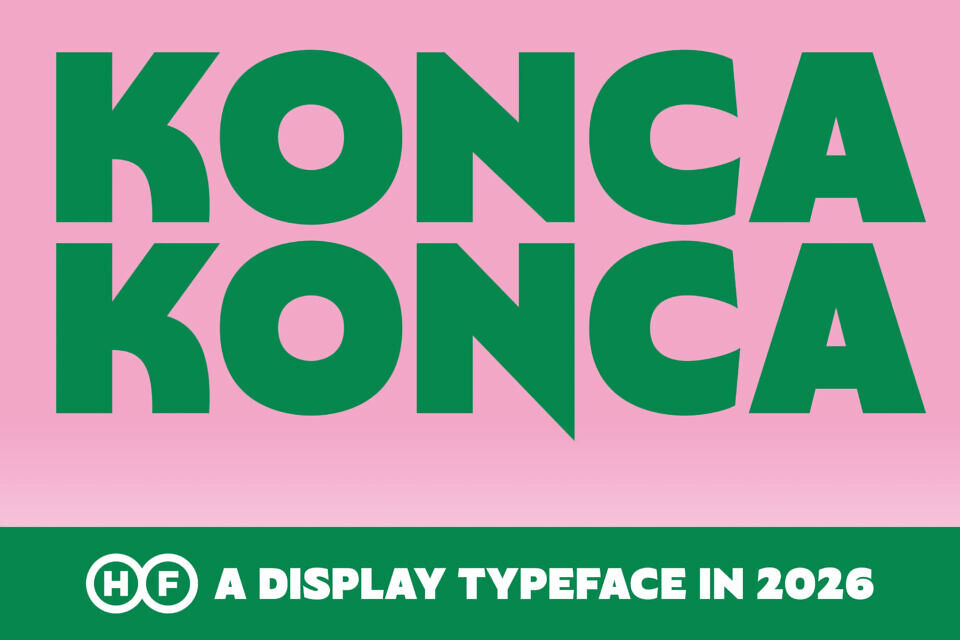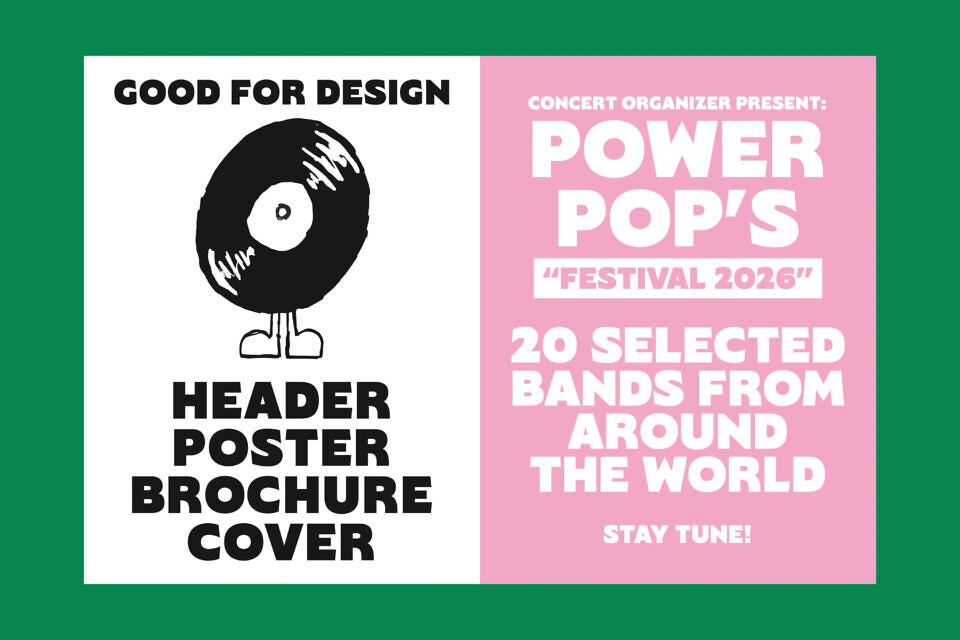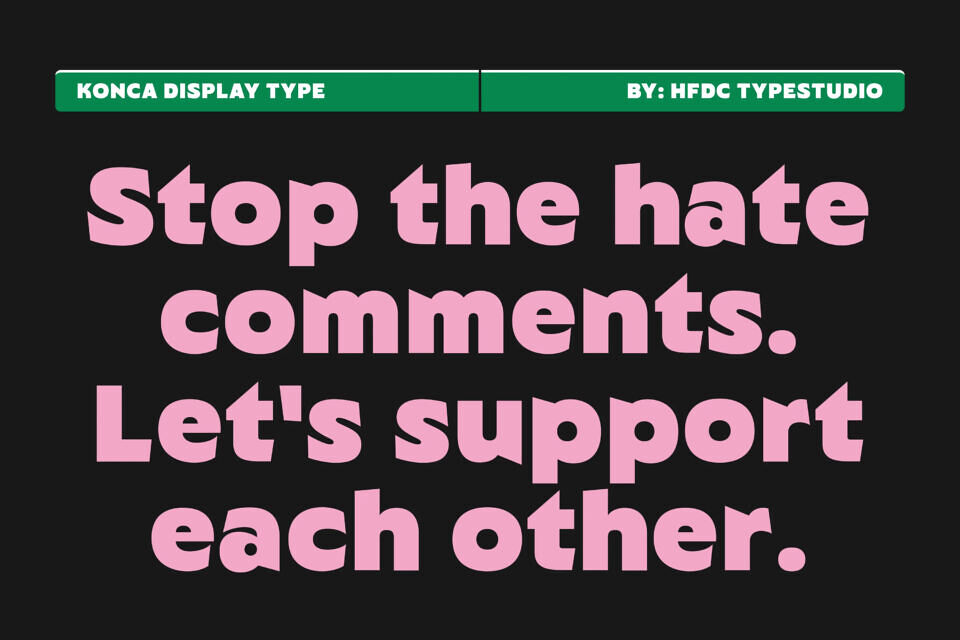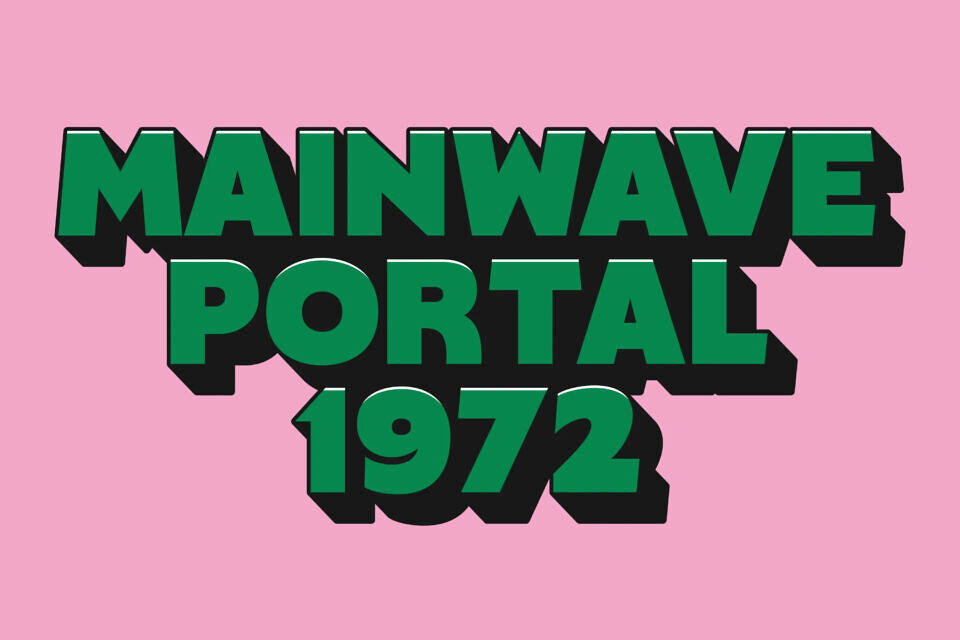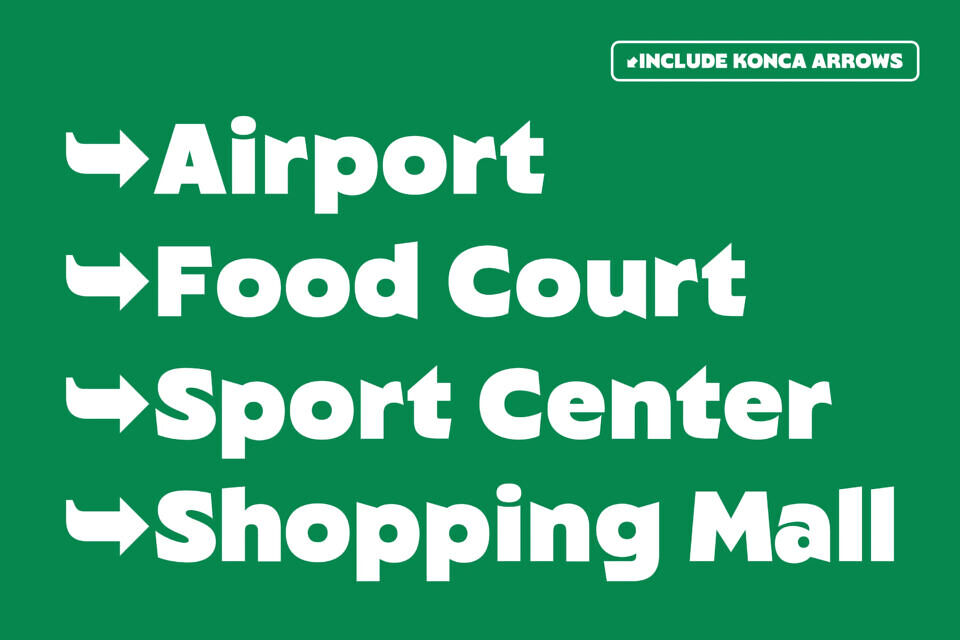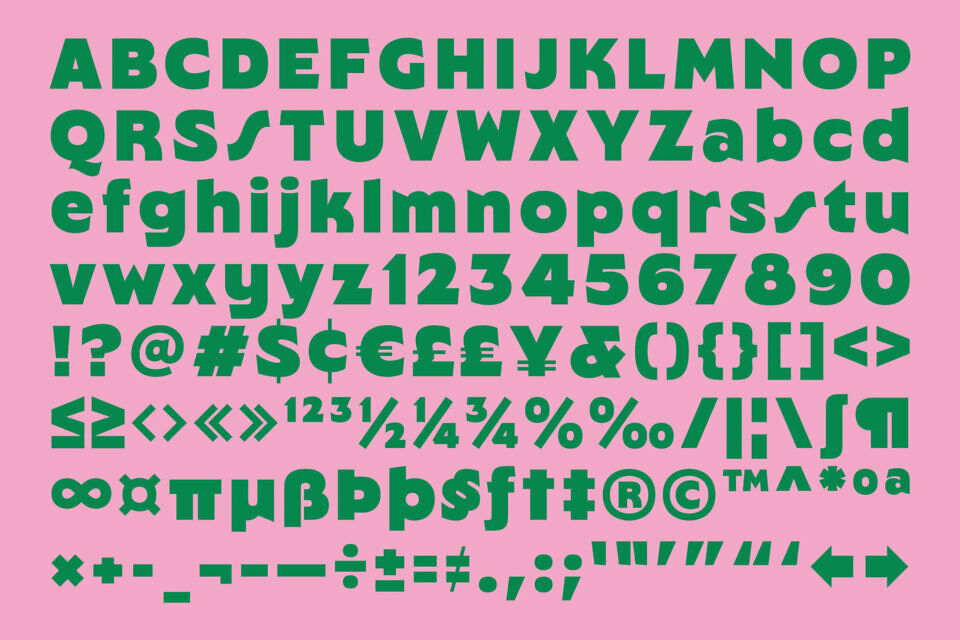
Konca HF Font
Konca HF is a striking sans-serif display font that seamlessly fuses bold Gothic structure with a raw vintage character. Built for designers who want their work to demand attention, this typeface delivers maximum visual impact across logos, headlines, posters, and packaging — anywhere strong typography is the centerpiece.
With a robust character set of 400+ glyphs and a range of stylistic alternates, Konca HF gives you the creative flexibility to push your designs further. Whether you’re building a modern brand identity or channeling a nostalgic aesthetic, its heavy weight and confident letterforms adapt without losing their distinctive edge.